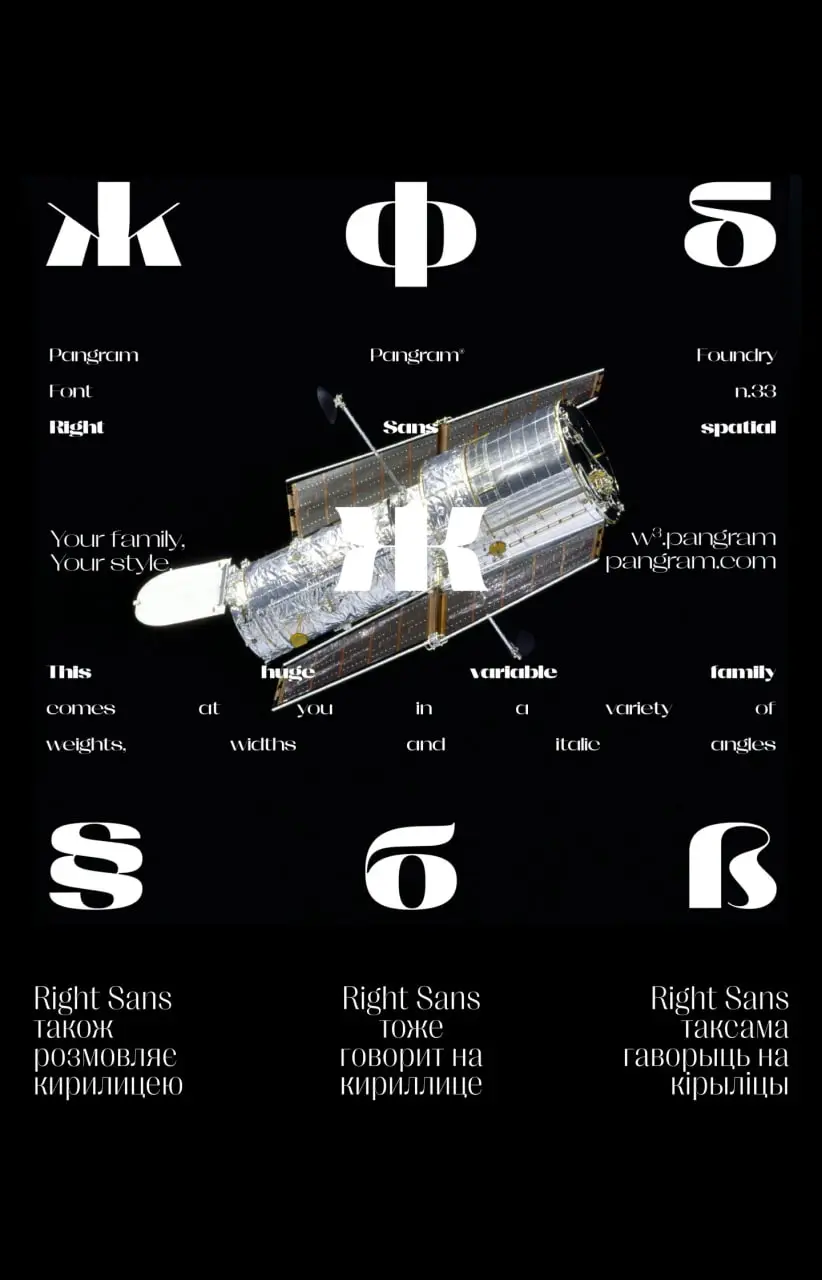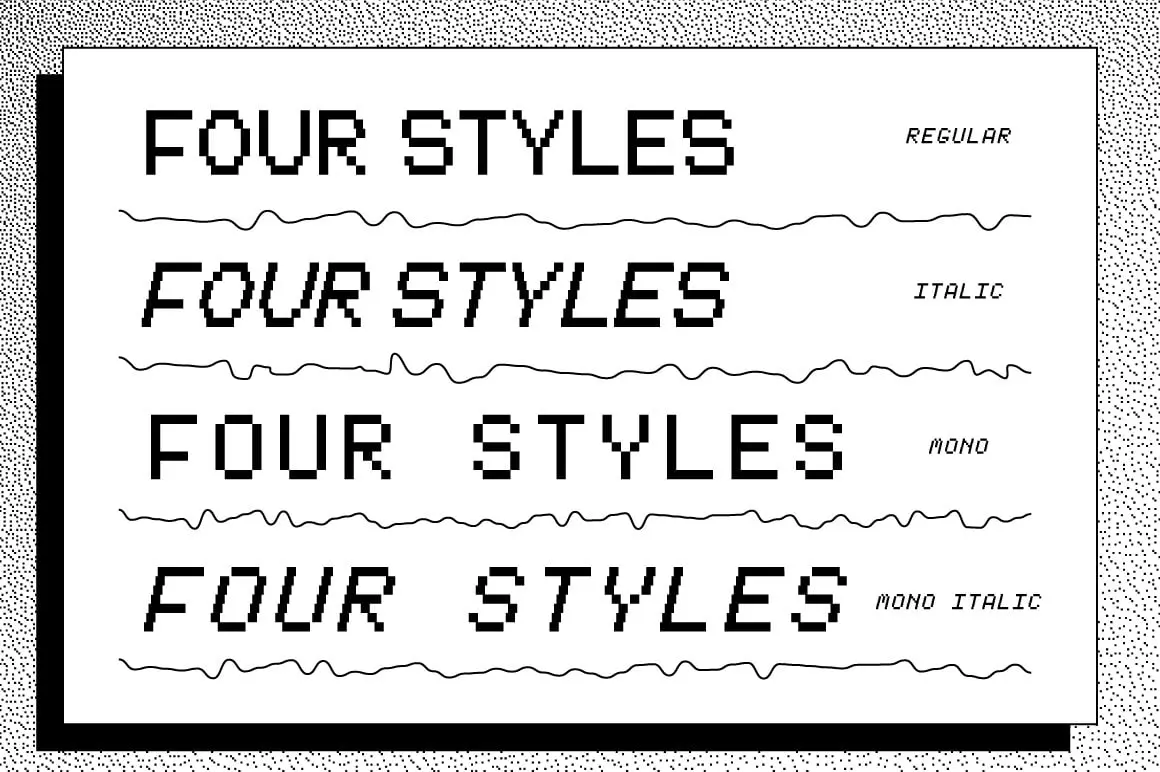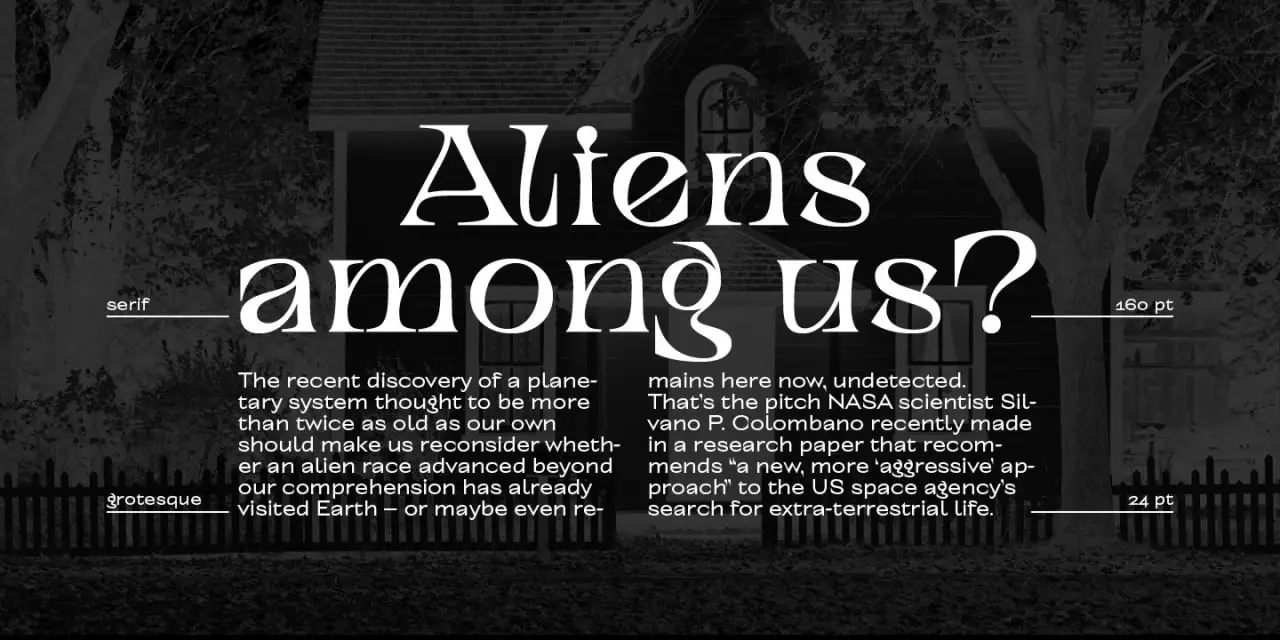
Welcome back, creative souls! 🎨✨ Today, we are diving headfirst into the wonderful world of typography and design assets with BrushesPack Collection Part 61. Whether you’re a branding guru, a digital artist, or someone who just loves making things look amazing, this list is packed with 20 absolute gems that will level up your projects instantly! 🚀
Why Use These Design Assets?
This collection is a treasure trove of modern, versatile, and expressive fonts and tools. From sleek serifs to bold graffiti vibes, each asset is crafted to help you make a statement, save time, and inject pure personality into your work. Whether you’re building a brand from scratch or just jazzing up a poster, these picks are your new best friends. 💪
Top 20 Design Picks from BrushesPack Collection Part 61
Tt Alientz By Vika Usmanova
This font is pure sci-fi elegance! 🛸 With multiple weights and a sleek, modern vibe, it’s perfect for branding that needs a futuristic, high-end touch.
Tickerbit Pixel Font
Ready to hit the arcade? 🕹️ This pixel font screams retro gaming nostalgia and is a must-have for any pixel art project or vintage-themed branding.
Rasfire Regular Donis Miftahudin
Clean, elegant, and incredibly modern – this typeface is a total chameleon. 🦎 From minimalist logos to sleek editorial layouts, it does it all flawlessly.
Renstoria-Bold Italic
Need some drama and flair? 💃 This bold italic is all about making a statement with elegance and motion. Perfect for impactful headlines that grab attention!
Right Sans
A complete family of clean sans-serif goodness! 🤍 From Light to Bold, this font is ultra-readable and perfect for websites, apps, and corporate branding.
Savigny-Psychedelic Display Font
Let’s get groovy, baby! 🌀 This font is a total trip with its bold, artistic, and wildly unique character. Ideal for music posters, festival branding, and anything that needs a burst of color.
Sackvoyage
A versatile design pack full of unique flair! 🎒 Whether for digital scrapbooking or quirky branding, this set adds that special “je ne sais quoi” to your art.
Price Check Font
Sharp, professional, and super clear! 💰 This font family is a powerhouse for any project that demands clarity and style—from e-commerce banners to product labels.
Meglona Modern And Stylish Serif
Elegance meets contemporary design! 🖋️ Meglona is a stunning serif that brings class to any magazine layout, wedding invitation, or luxury brand project.
Mightiest Autograph By Donis Miftahudin
Add a personal, signature touch to your work! ✍️ This authentic autograph asset is perfect for logos, watermarks, or adding a dash of credibility to your designs.
More Than Life-Bubble Graffiti Tag Font
Bring the streets to your screen! 🎤 This playful, bubble graffiti font is bursting with urban energy and is perfect for streetwear branding or edgy poster designs.
Mesy Guako
A fresh and unique digital asset that’s ready to shake up your creative process! 🌿 Its high-quality elements are super easy to customize, giving your projects a distinctive edge.
Jaws Font
You’re gonna need a bigger font! 🦈 With its sharp, adventurous edges, this typeface is perfect for movie posters, gaming graphics, or any project that needs a thrill.
Maglony Typeface
Elegant curves and modern vibes, all in one stunning package! 🌸 Maglony is versatile enough for logos, web design, and print—it’s a true all-rounder.
Kwele Font
Where modern design meets cultural flair! 🌍 Kwele’s clean lines and unique character shapes make it perfect for travel branding or any project that needs a global touch.
Enigma By Hvnter
Mysterious and modern, this design collection is full of high-res assets! 🔮 Perfect for adding a sleek, enigmatic vibe to both personal and commercial projects.
Cybermontage Font By Ray Larabie
Retro-futurism at its finest! 🤖 This geometric font blends classic vibes with a modern edge. It’s a must-have for tech branding or cyberpunk-inspired designs.
Easter Early Display Font By Un Carving
Get ready for spring with this playful and festive font! 🐣 Perfect for holiday cards, Easter egg hunts, or any project that needs a cheerful, whimsical touch.
Enigma Lettering Studio-Mata Pisau Font
Sharp, artistic, and incredibly stylish! 🗡️ This font blends modern elegance with a creative edge, making it ideal for brands that want to stand out from the crowd.
Bodwars By Sarid Ezra
Unleash creative possibilities with this powerful design asset! 💥 Bodwars is versatile, modern, and easy to tweak—perfect for anyone wanting to give their projects a bold new look.
And there you have it — 20 incredible design treasures from BrushesPack Collection Part 61! 🎉 Whether you’re crafting a bold new brand identity, designing a nostalgic game interface, or just experimenting with fresh typography, these assets are guaranteed to spark your creativity. Don’t wait too long to grab your favorites, and remember: a great design always starts with the right tools! 🚀✨